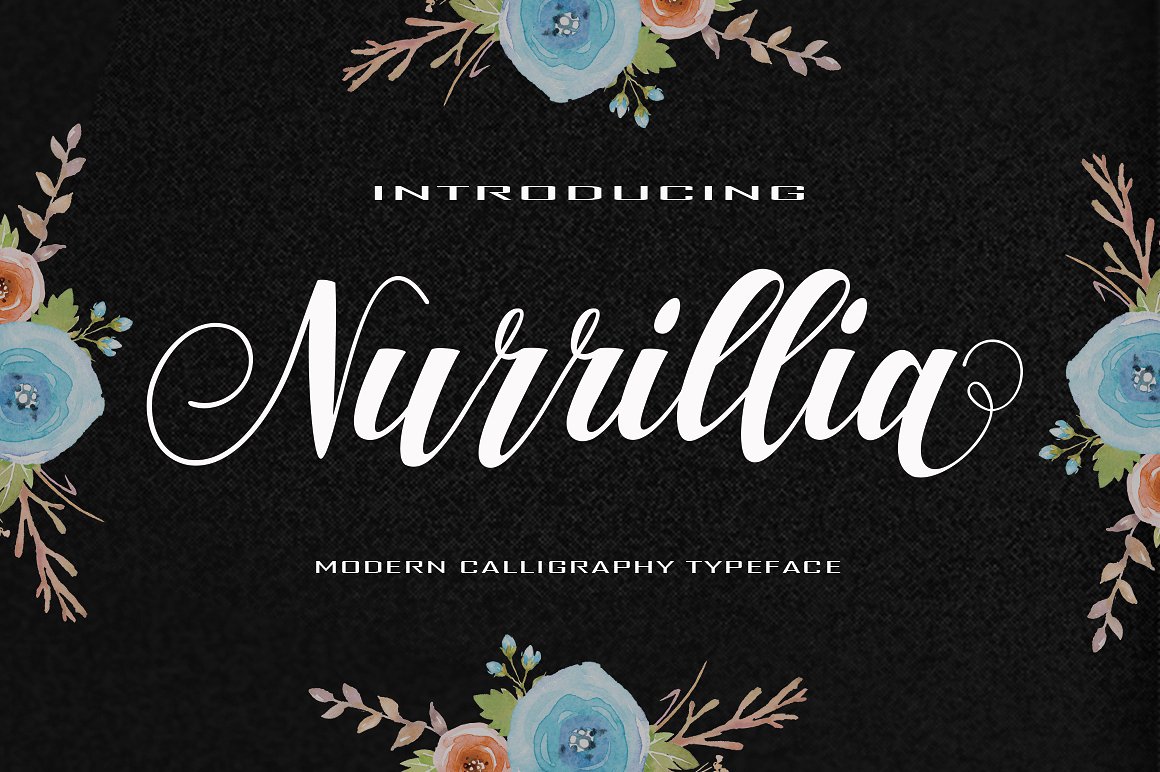
Nurrillia Script
Nurrillia Script Font
Nurrillia Modern Calligraphy. This font was designed by handwriting, and it has a modern and unique forms of calligraphy, the writing style is very natural. Nurrillia has a very unique style of calligraphy, it is very suitable for use in the work of modern design.